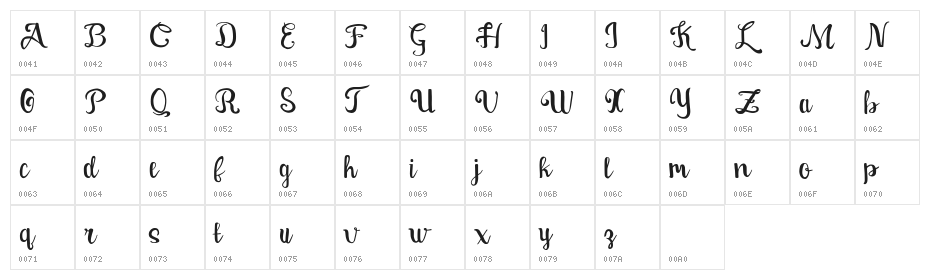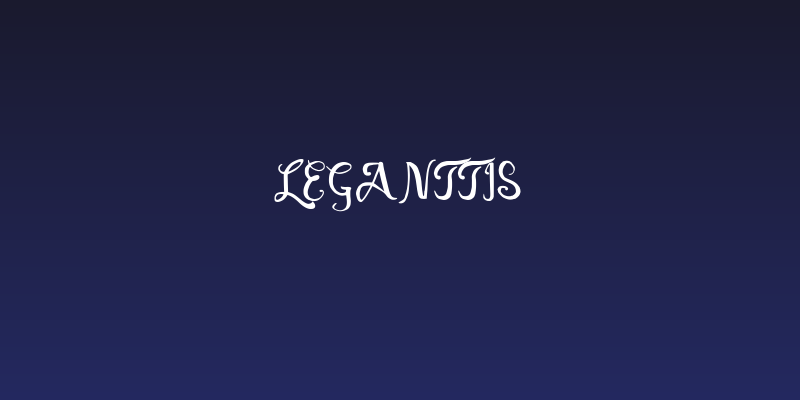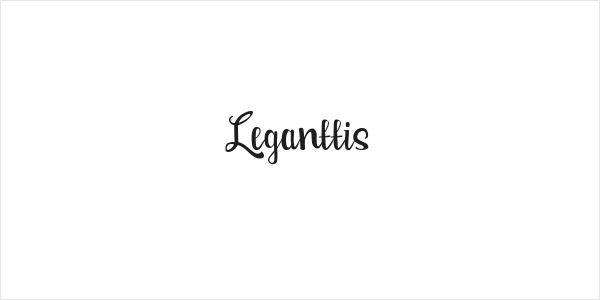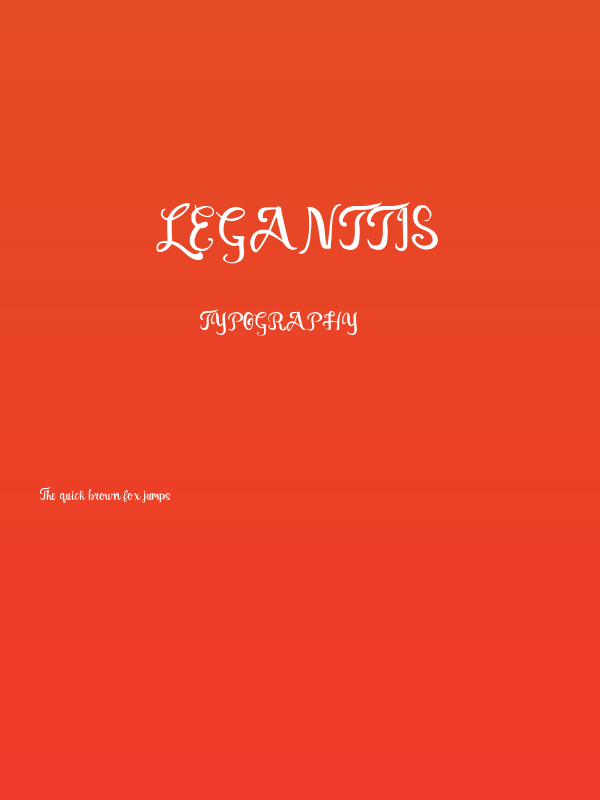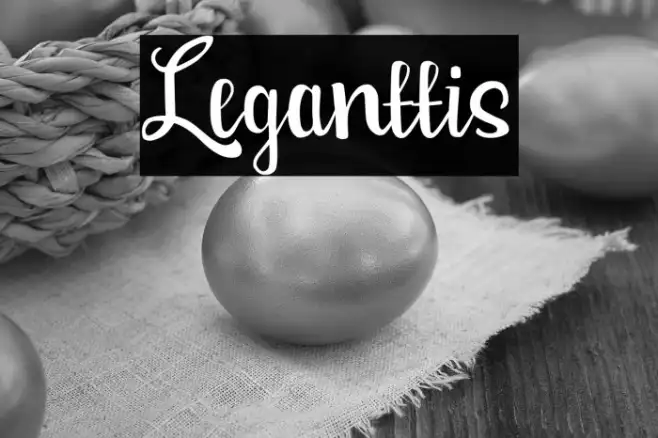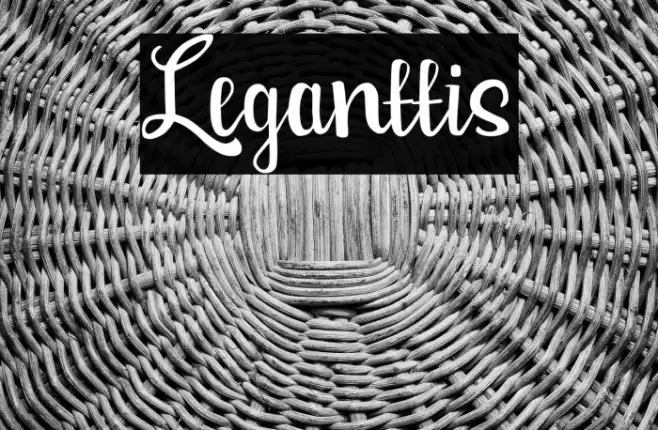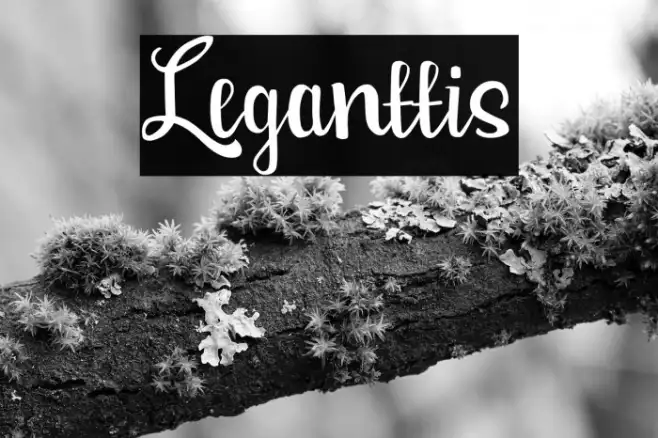
Leganttis Font
Leganttis Description
This font features a decorative and elegant script style with a playful yet sophisticated flair. The uppercase letters are characterized by their intricate loops and swirls, adding a sense of movement and grace. The lowercase letters maintain a consistent flow, with smooth curves and a slightly whimsical touch. The font exhibits a medium contrast in stroke thickness, providing a balanced and harmonious appearance. Its unique style makes it suitable for creative and artistic projects, where a touch of elegance and personality is desired. The spacing between characters is normal, ensuring readability while maintaining its decorative appeal.
| Use Case | Logos, Invitations, Artistic Designs |
| Proposed Projects | Ideal for wedding invitations, greeting cards, branding, and artistic designs requiring a touch of elegance. |